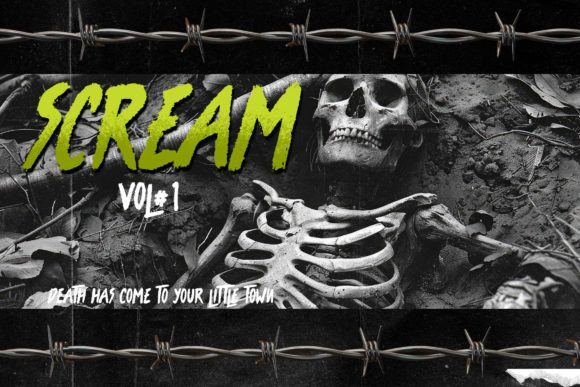
Vultures Font
Vultures is a spooky, bold font that looks like it was drawn with a thick marker. Perfect for Halloween, horror movie posters, or anything that needs a creepy, dramatic touch.
It would make a great choice for exquisite retro-urban designs, business branding, logos, Apparel designs, and more.